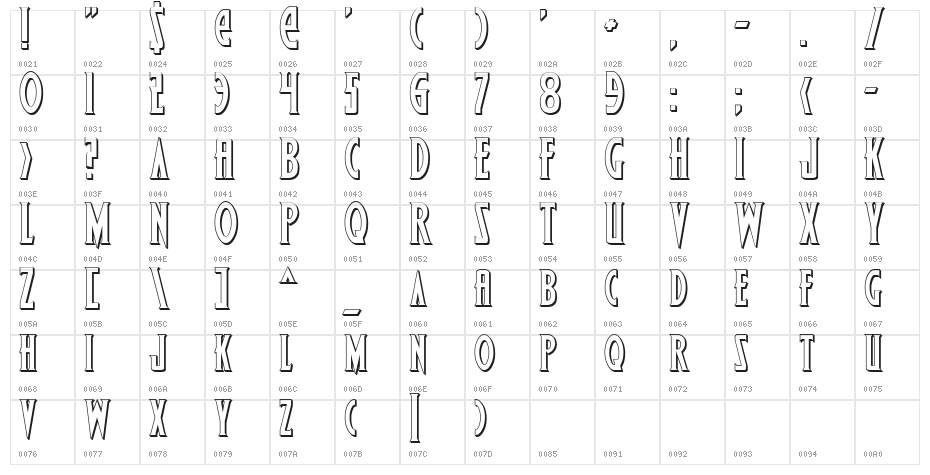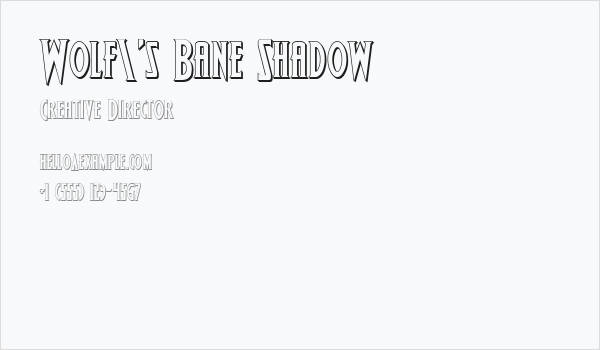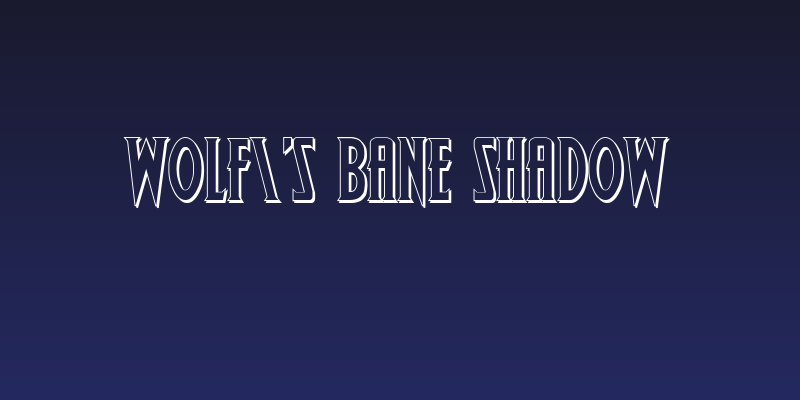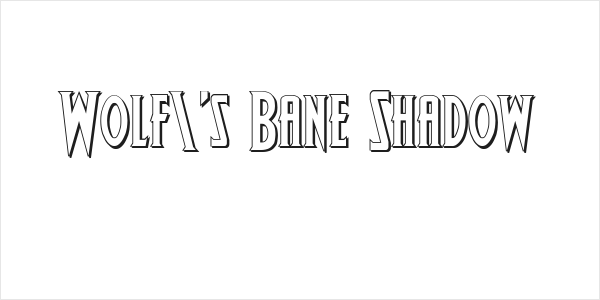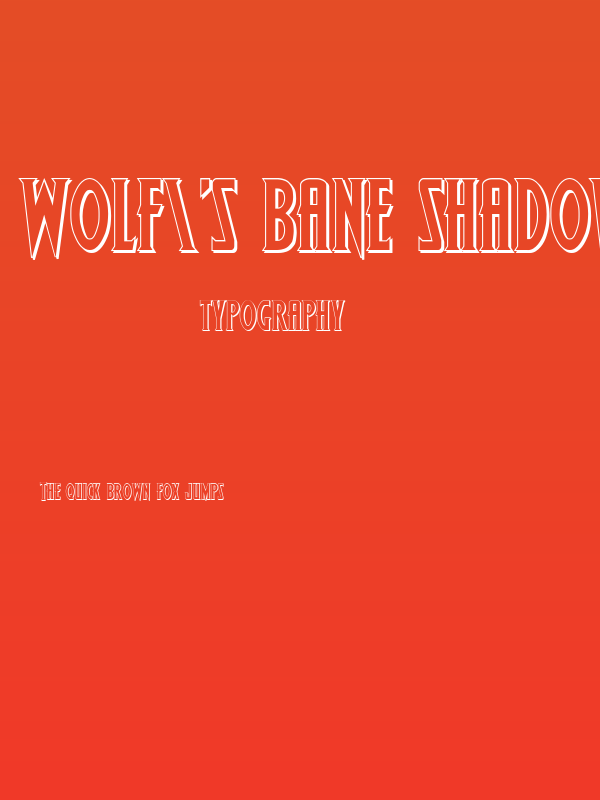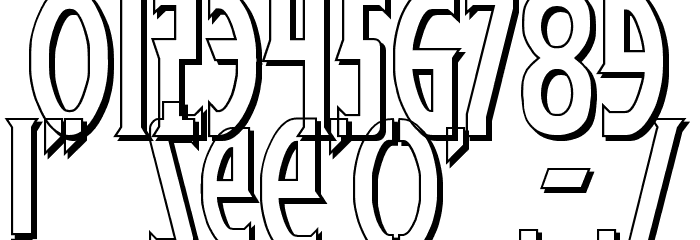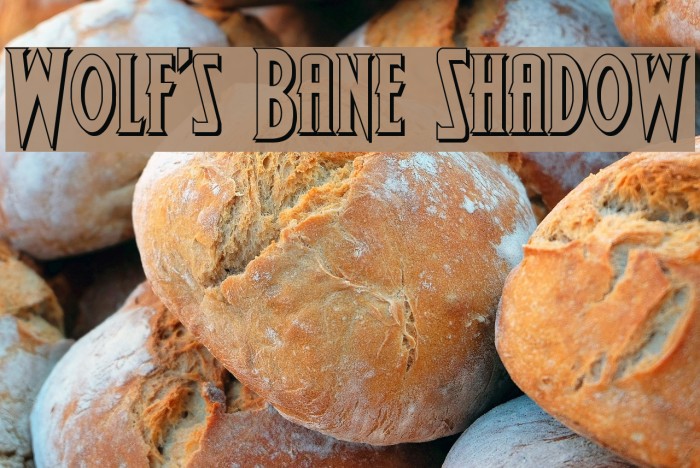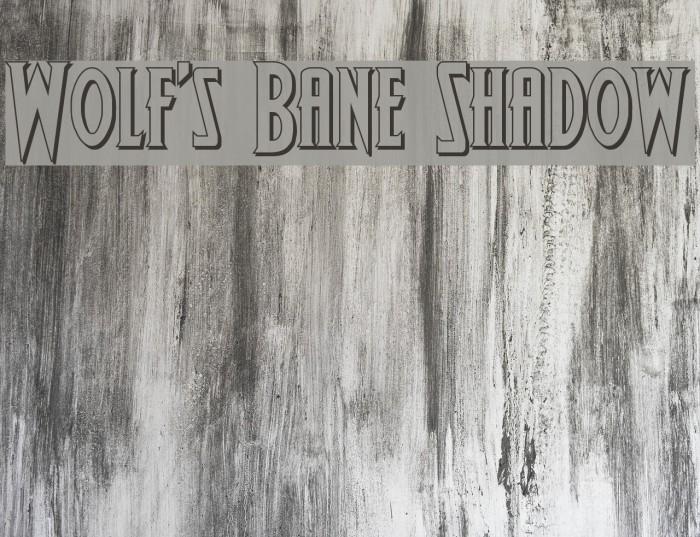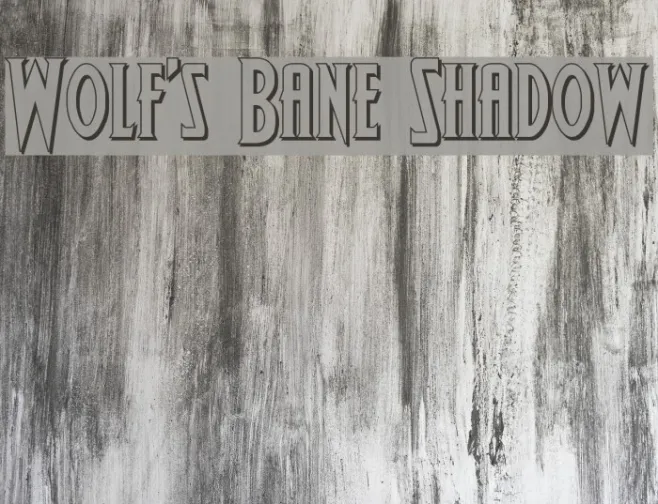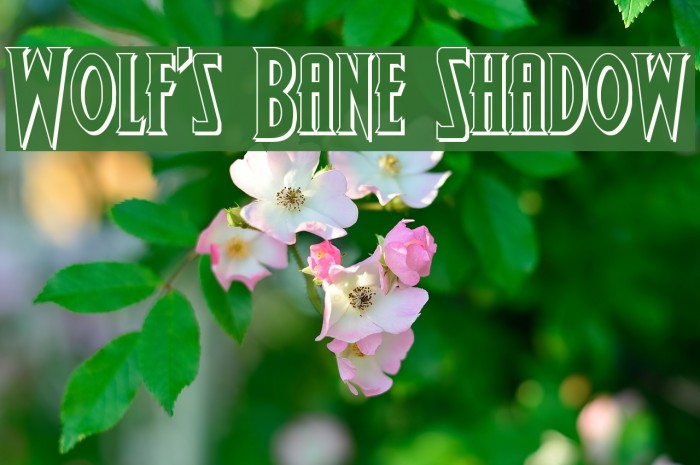
Wolf's Bane Shadow Font
Wolf's Bane Shadow Description
This font features a bold and dramatic style with a shadow effect that gives it a three-dimensional appearance. The characters are tall and narrow, with sharp, angular serifs that add a sense of elegance and strength. The shadowing is consistent across all characters, enhancing the depth and making the text stand out. This design is reminiscent of vintage poster fonts, often used to convey a sense of mystery or intrigue. The uppercase and lowercase letters maintain a uniform style, while the numerals and special characters complement the overall aesthetic. The font's unique style makes it ideal for creating eye-catching headlines or logos.
| Proposed Projects | Ideal for vintage-themed posters, book covers, logos, and dramatic headlines. |